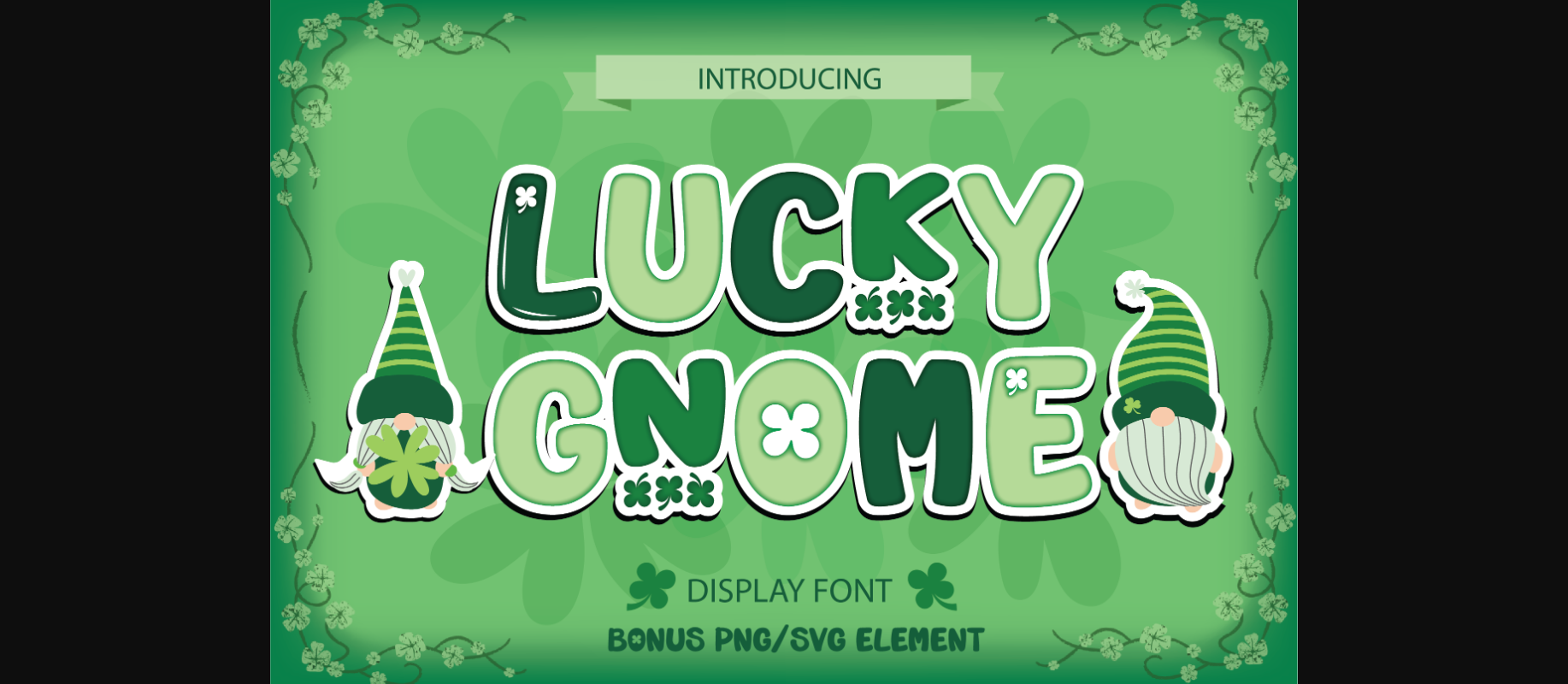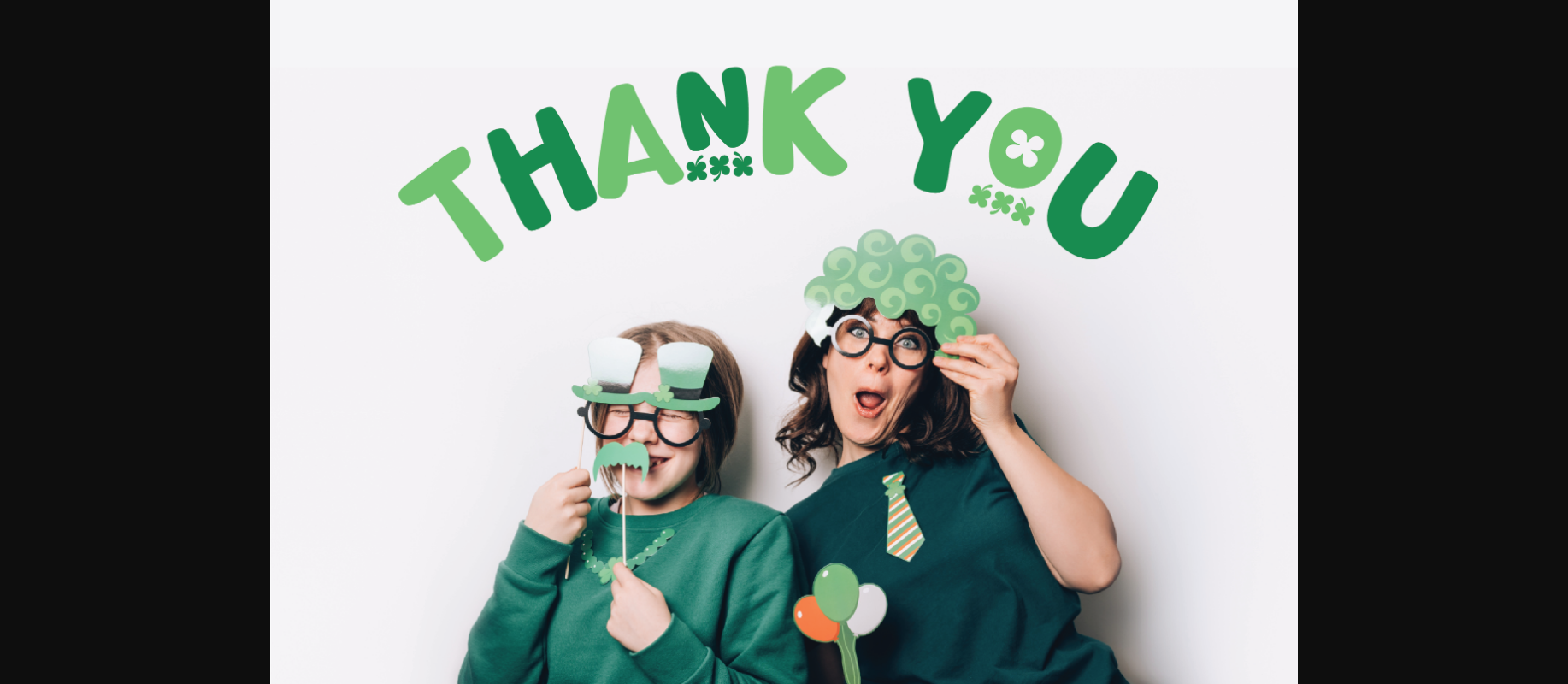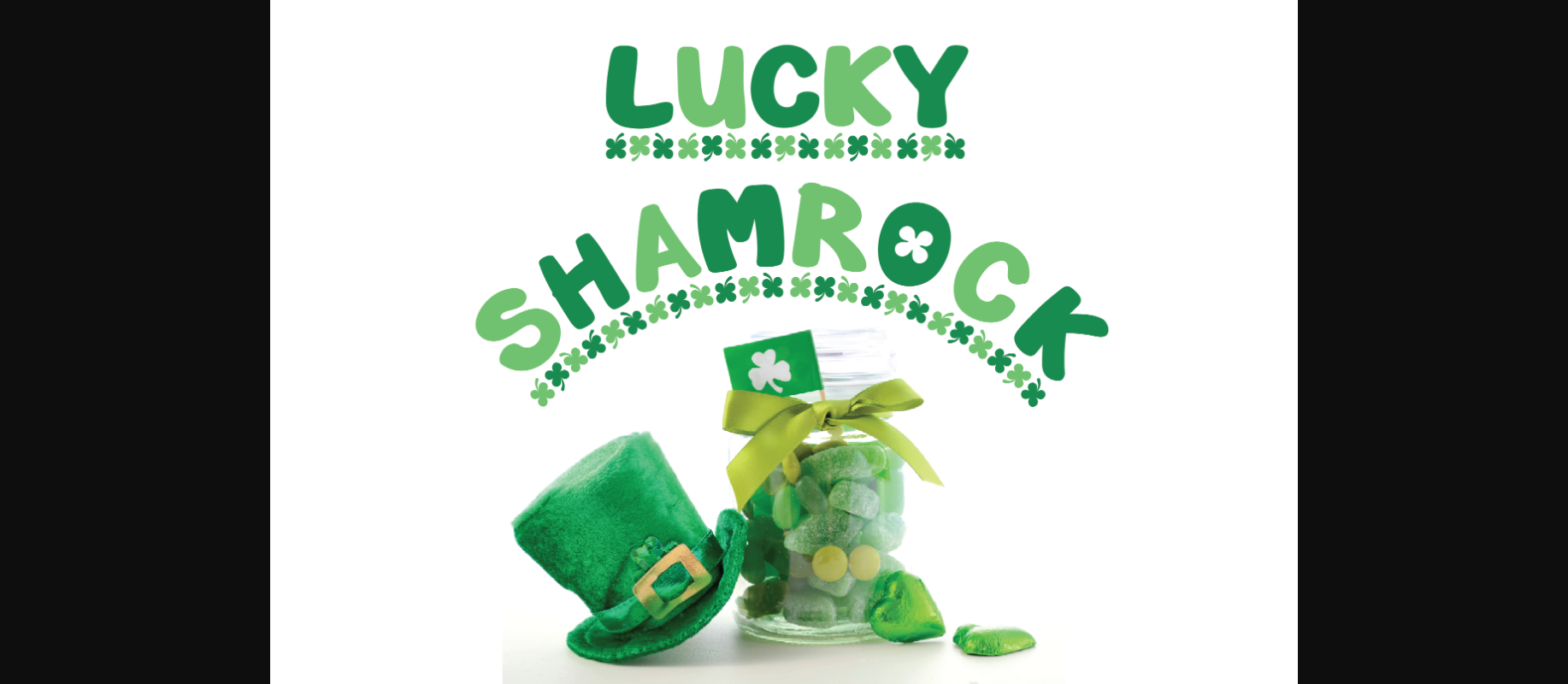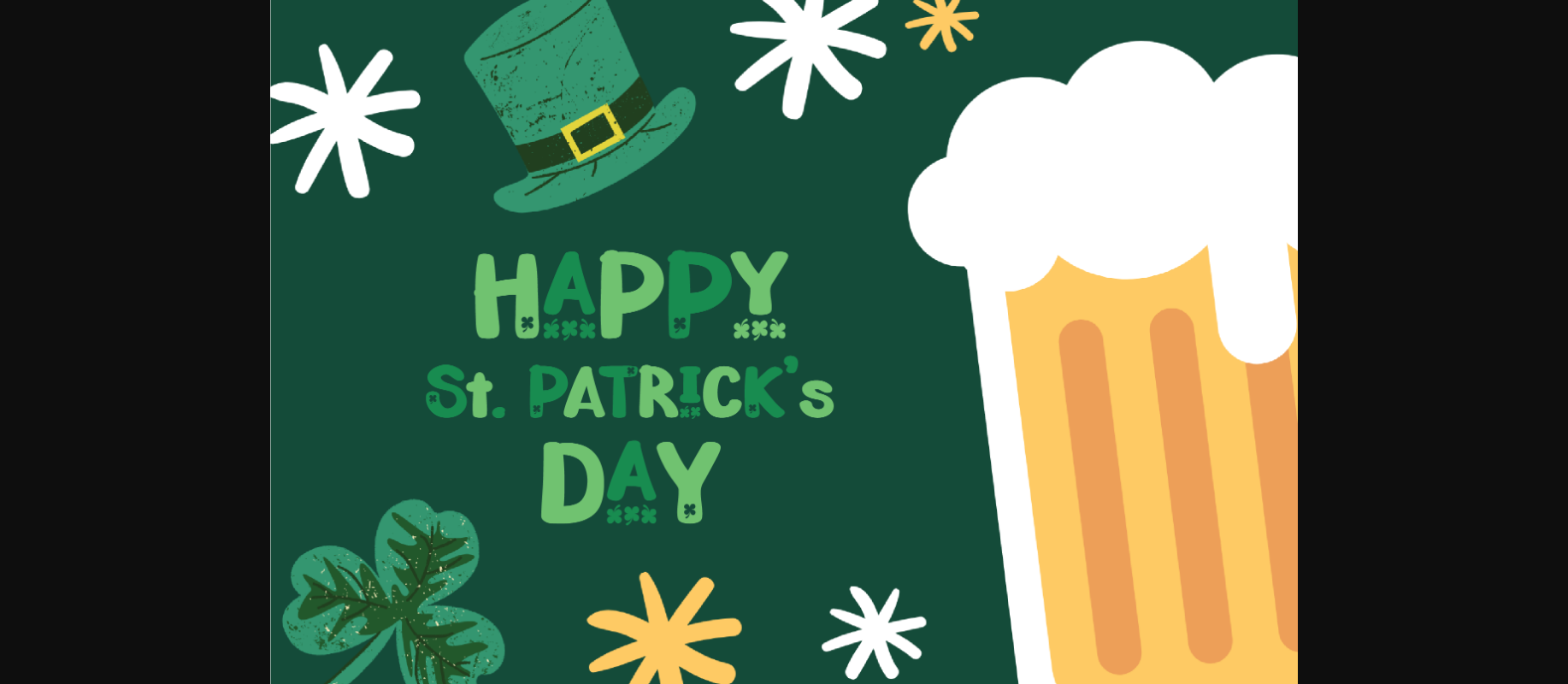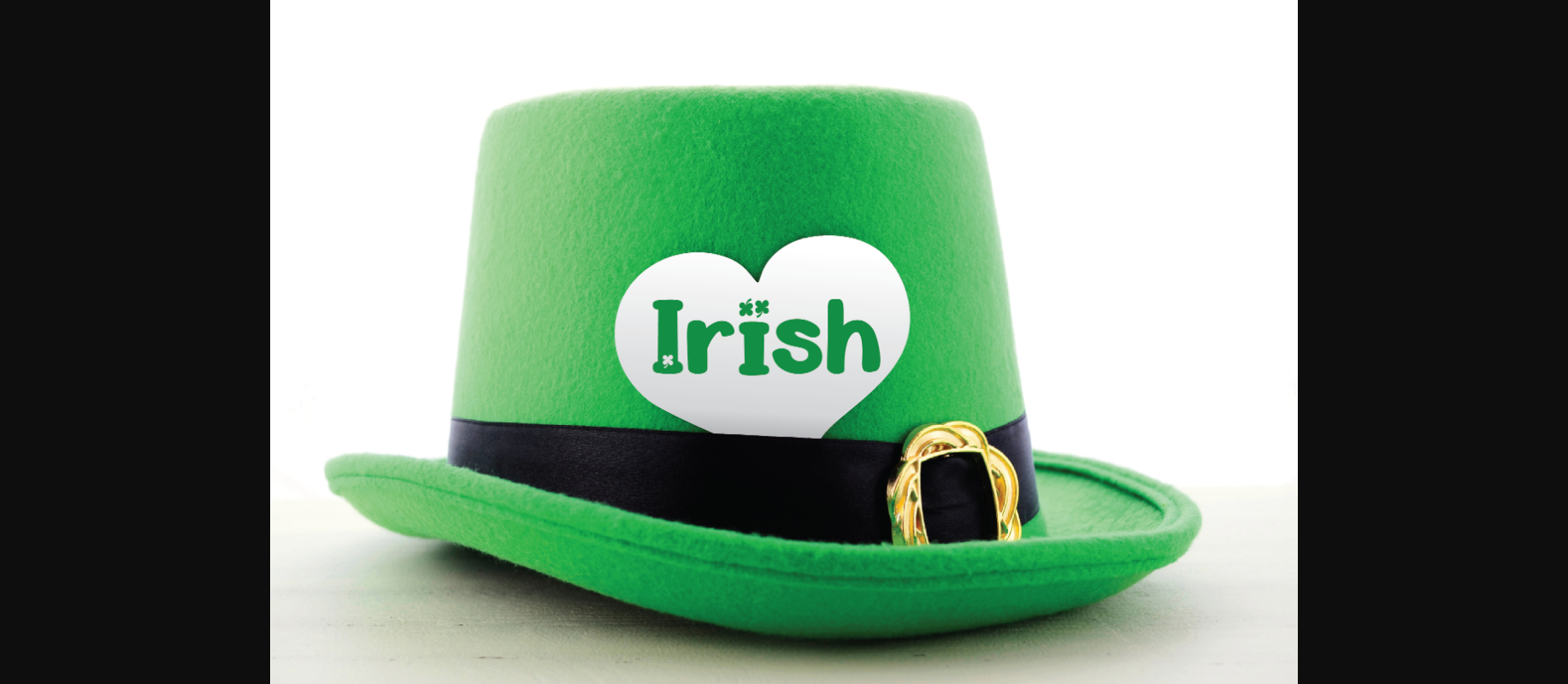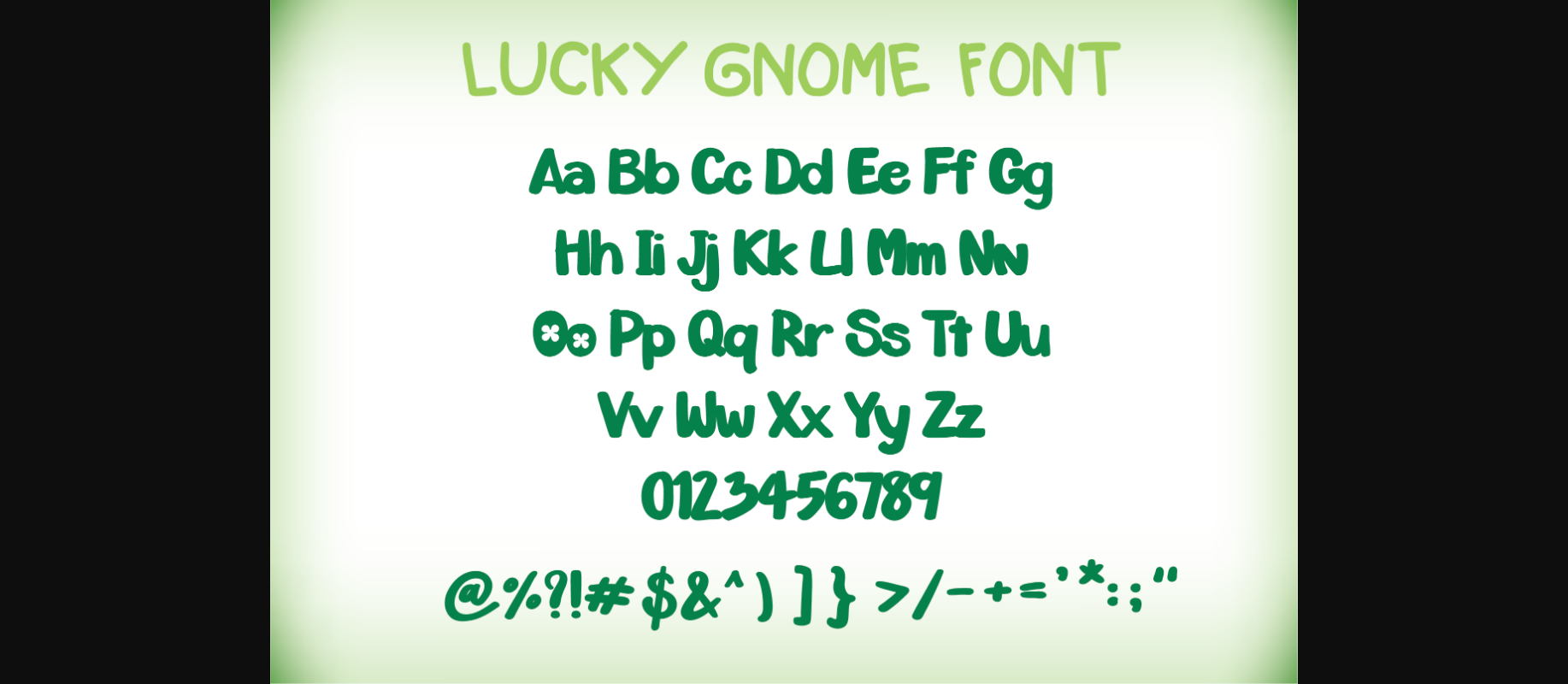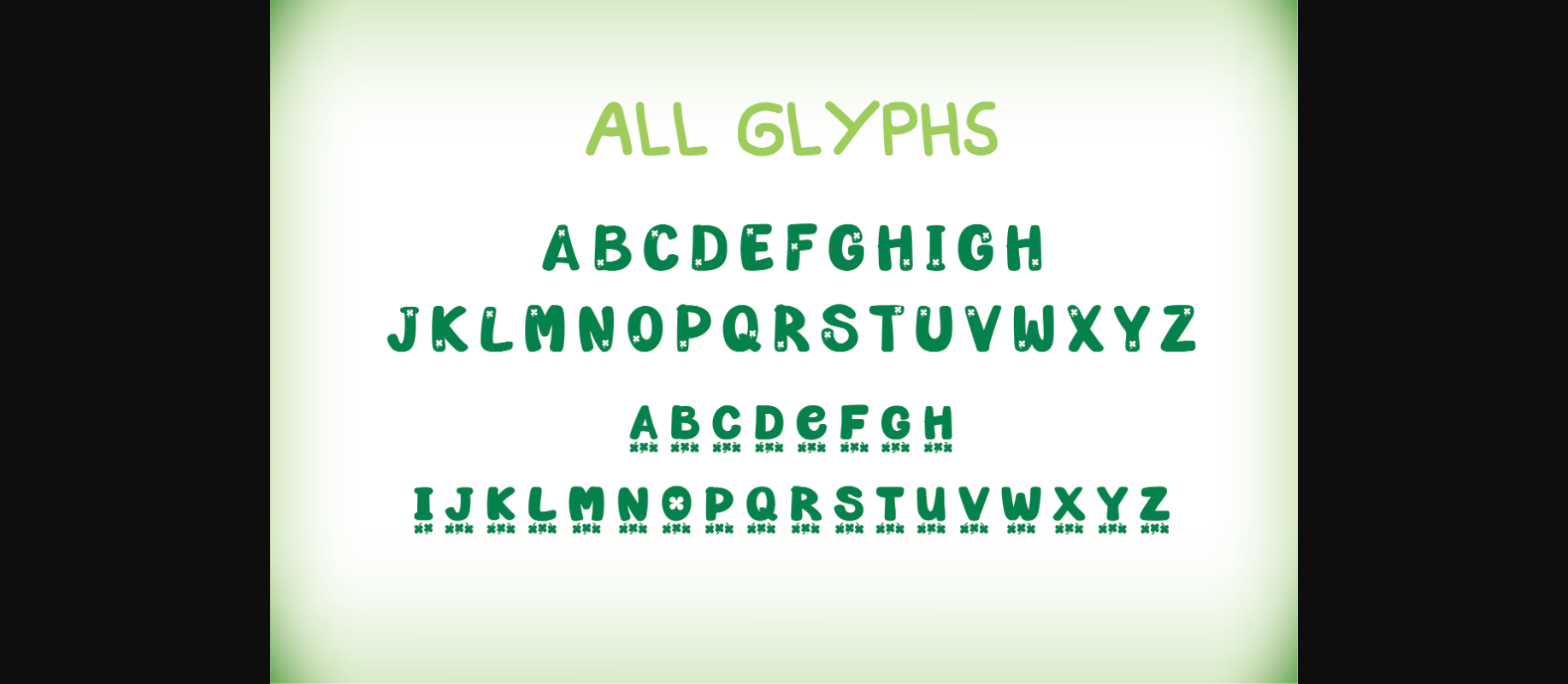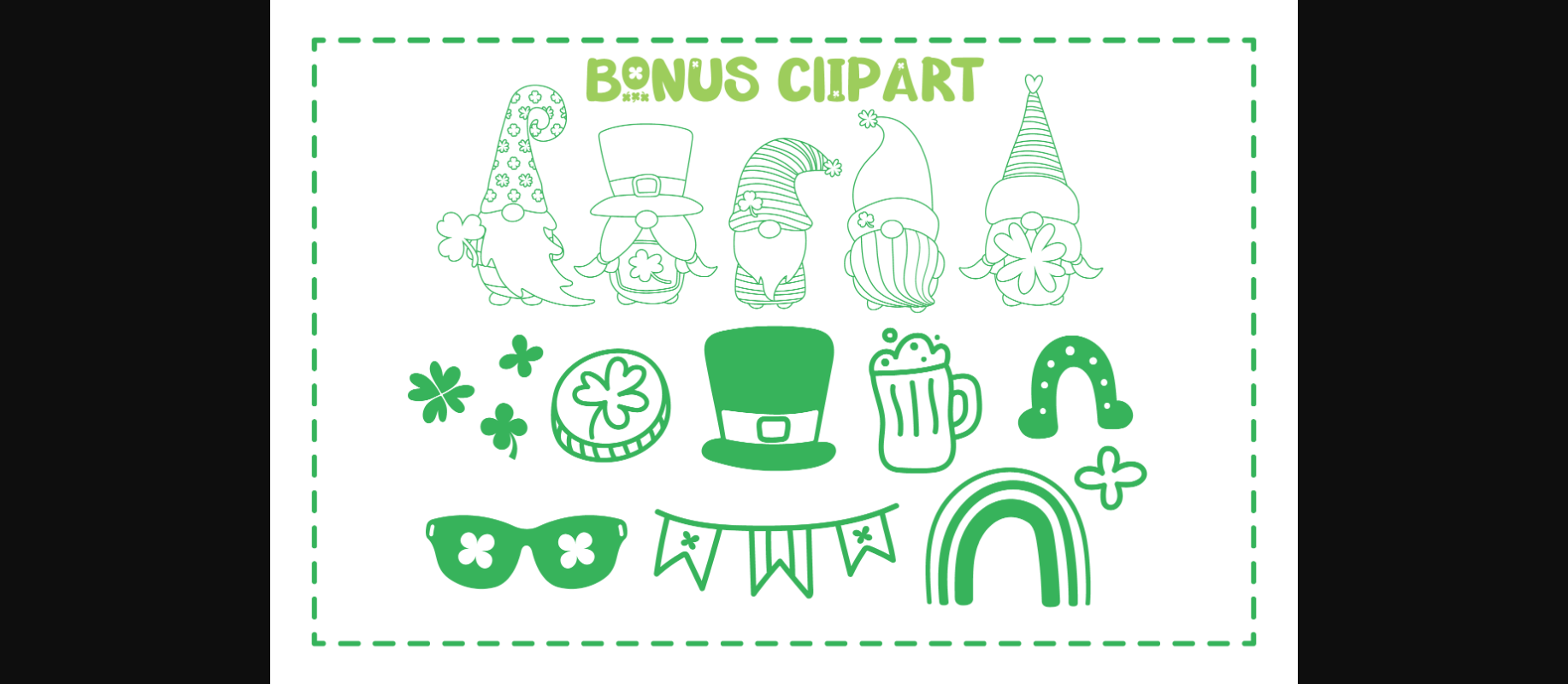
HomeDecorative FontsLucky Gnome Font Decorative Fonts Lucky Gnome Font FacebookXPinterestWhatsApp 1 of 10 ... Lucky Gnome Font Poster 2... Lucky Gnome Font Poster 3... Lucky Gnome Font Poster 4... Lucky Gnome Font Poster 5... Lucky Gnome Font Poster 6... Lucky Gnome Font Poster 7... Lucky Gnome Font Poster 8... Lucky Gnome Font Poster 9... Lucky Gnome Font Poster 10... About Lucky Gnome Font Get ready for St Patrick’s Day with this fun decorative display font! Lucky Gnome lowercase letters are decorated with clovers, so it will definitely bring some luck and cheer to your designs. DOWNLOAD NOW People also explored Harahel Font Peppermill Font Thicken Font Rouchont Font Marina Bullock Font Love Spring Font Contra Font Aerobody Mockup White Mug Minimal Feminine Photo 273 0 TagsLucky Gnome Font Previous articleDog Paws FontNext articleSpydier Font LEAVE A REPLY Cancel reply Comment: Please enter your comment! Name:* Please enter your name here Email:* You have entered an incorrect email address! Please enter your email address here Website: Save my name, email, and website in this browser for the next time I comment. Personal Use Free Masker Area Personal Use Free Read more about this font Mika Personal Use Free Read more about this font Party Pooper Personal Use Free Read more about this font Amrina Personal Use Free Read more about this font BLOG How to Cut Any Font on Cricut: Convert a Font to SVG (Free) Turn any font into a clean SVG so it cuts crisp on Cricut - a quick 3-step workflow using a free font-to-SVG tool. Using Fonts in Digital Marketing: Tips to Strengthen Your Brand Identity Modern Sans-Serif Fonts That Brands Love in 2025 Free Fonts Risk: Why Free Fonts Can Be Dangerous for Designers